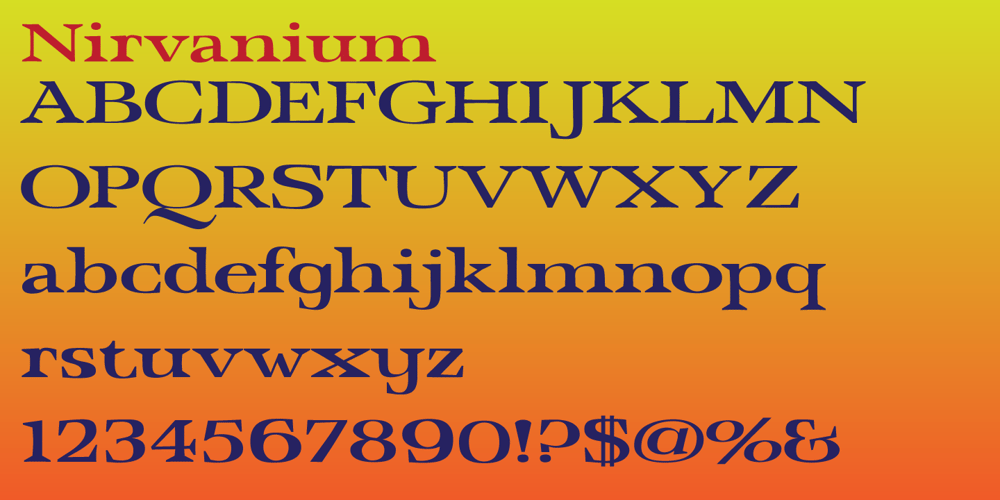
Nirvanium NB
Nirvanium NB font
Nirvanium NB Font Family was designed by George E. Thompson and published by No Bodoni. Nirvanium NB contains 5 styles and family package options. If John Baskerville had been born in Seattle in the 1960s his type would have looked like Nirvanium: a wide, extended body with chunky Dr. Martin serifs, an assertive inelegance and a sense of rebelliousness. It�s a display face, too big, too chunky and too rambunctious for text, but always friendly.